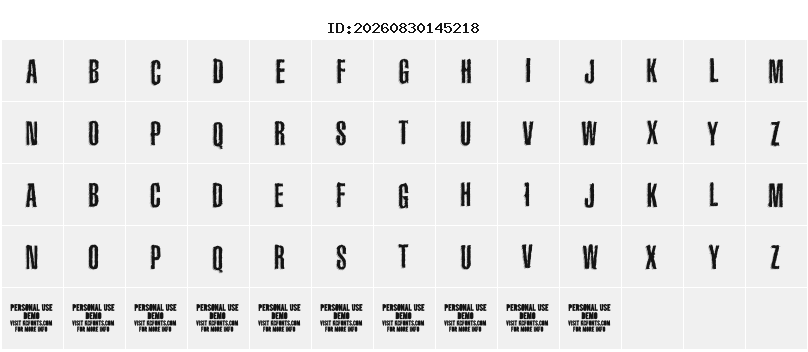
The Main Event Preview
• Font Name: The Main Event
• Font ID: KevinChristopher: The Main Event: 2012
• Full Font Name: The Main Event
• PostScript Name: TheMainEvent
• Designer: Kevin Christopher
• Manufacturer: Kevin Christopher
About The Main Event.ttf
The Main Event.ttf is a modern, elegant sans-serif font designed for ultimate readability and visual harmony. Perfect for branding, headlines, web design, and print materials.